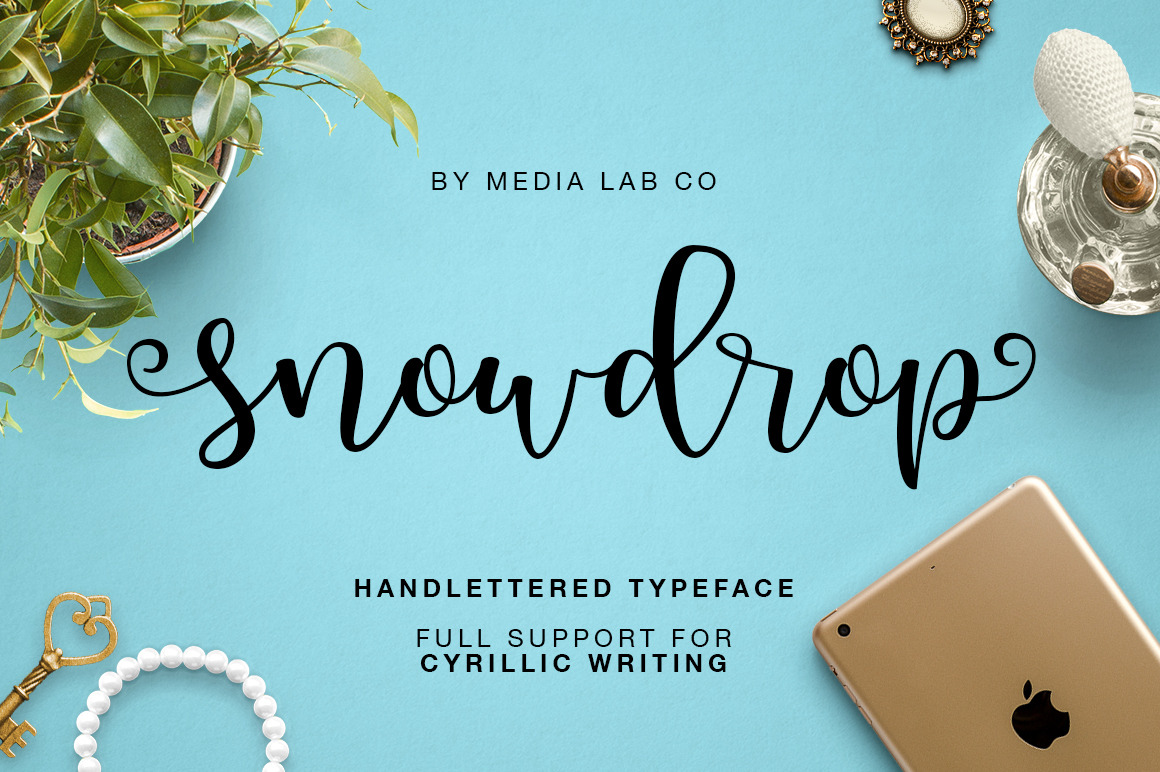
Snowdrop Script Font
Snowdrop Script Font is perfect for winter wedding invitations, holiday greeting cards, seasonal boutique branding, Christmas market signage, cozy cafe menus, winter festival posters, artisan gift packaging, and elegant winter-themed stationery.
What makes Snowdrop Script Font exciting is its delicate winter elegance that captures the pristine beauty and gentle grace of the first flowers of spring emerging through snow. The font features flowing letterforms with crystalline curves and frost-kissed character variations that evoke snowflakes, icicles, and the quiet magic of winter mornings. Its distinctive seasonal styling and pure aesthetic communicate serenity, renewal, and natural beauty, making every message feel touched by winter's peaceful charm and the promise of spring's gentle arrival.
The Snowdrop Script Font family includes regular weight with uppercase and lowercase letters, numerals, punctuation marks, and special characters. Premium versions often feature decorative alternates and winter-inspired flourishes that enhance the seasonal, elegant aesthetic perfect for holiday and winter applications.
This enchanting winter typeface brings instant seasonal charm and elegant sophistication to any cold-weather project. Snowdrop Script Font Free Download delivers exceptional results for brands and events celebrating winter beauty, holiday traditions, and the quiet elegance of seasonal celebrations.
The serene character of Snowdrop Script Font makes it particularly valuable for winter event planners, holiday retailers, and seasonal hospitality businesses. Its excellent readability ensures festive messaging and seasonal information remain clear while maintaining the distinctive winter aesthetic that appeals to customers seeking elegant, peaceful winter experiences.
Holiday marketers and seasonal designers appreciate how Snowdrop Script Font effortlessly conveys winter tranquility and seasonal beauty. The font's graceful proportions and crystalline details create beautiful brand materials that establish emotional connections with audiences celebrating winter holidays, seasonal traditions, and the quiet elegance of snowy landscapes.
The versatile winter appeal of this typeface extends to ski resorts, winter sports equipment, and seasonal wellness brands where winter authenticity enhances brand credibility. Snowdrop Script Font Free Download provides creative professionals with an essential tool for developing memorable, season-inspired designs that resonate with audiences who embrace winter beauty, holiday traditions, and the peaceful elegance of snowdrop flowers blooming through winter's final days.